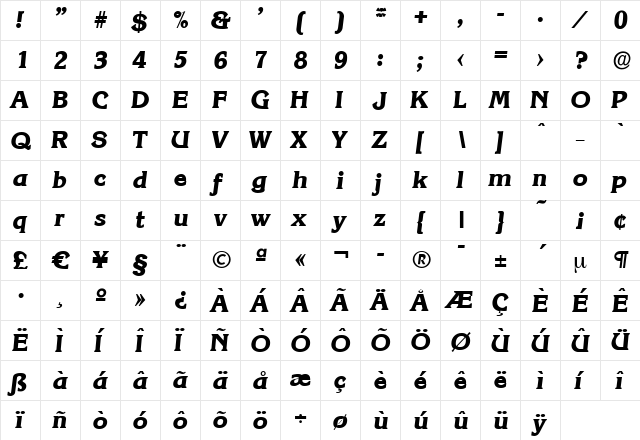
AlanBecker-ExtraBold Italic Font Preview
Design Context for AlanBecker-ExtraBold Typeface
AlanBecker-ExtraBold takes a measured approach to typography — its balanced proportions and neutral character make it a reliable workhorse for both digital and print work. Its italic angle brings a sense of urgency and motion to the letterforms. Its bold stroke weight gives it real presence on the page.